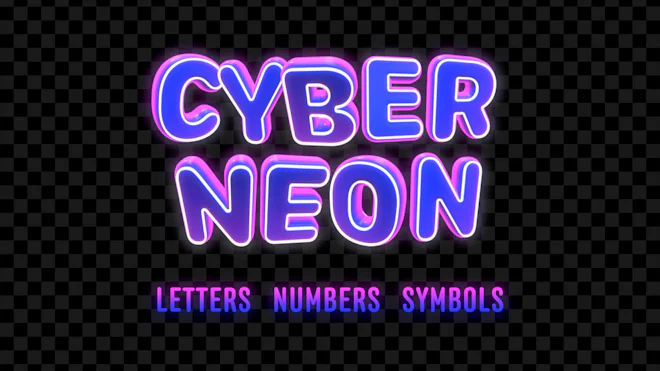
This stock motion graphics video pack includes 48 clips of Cyber Monday blue neon letters, numbers, and symbols on a transparent alpha channel in a seamless loop.